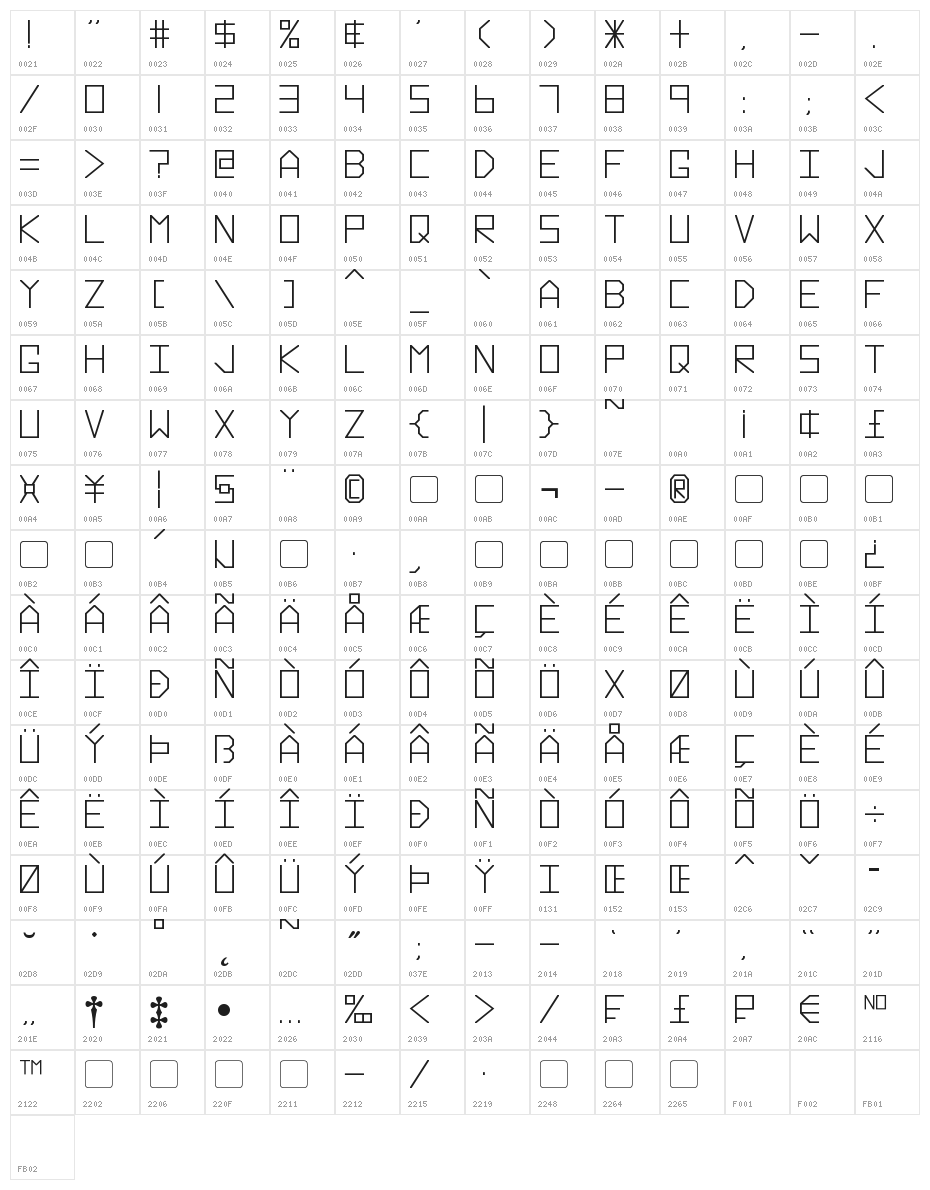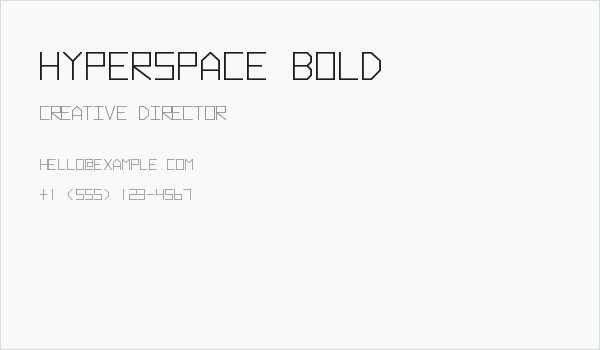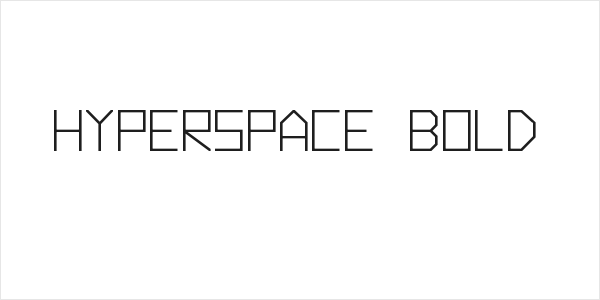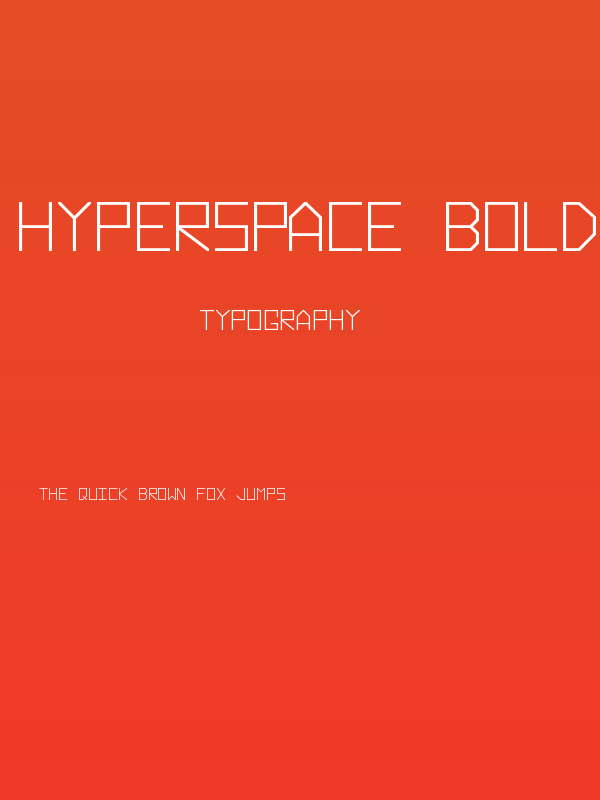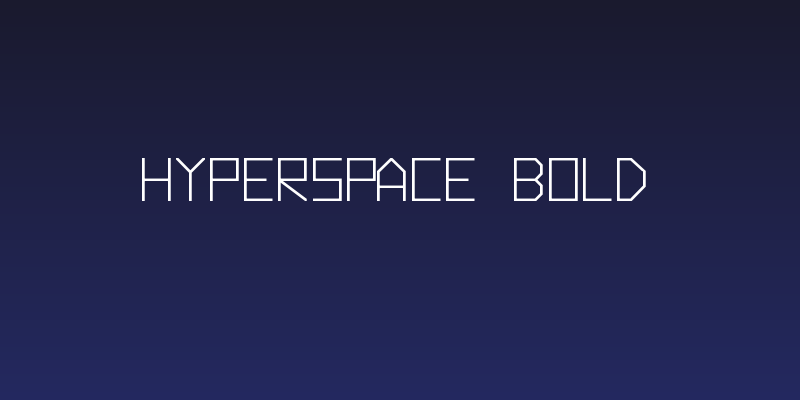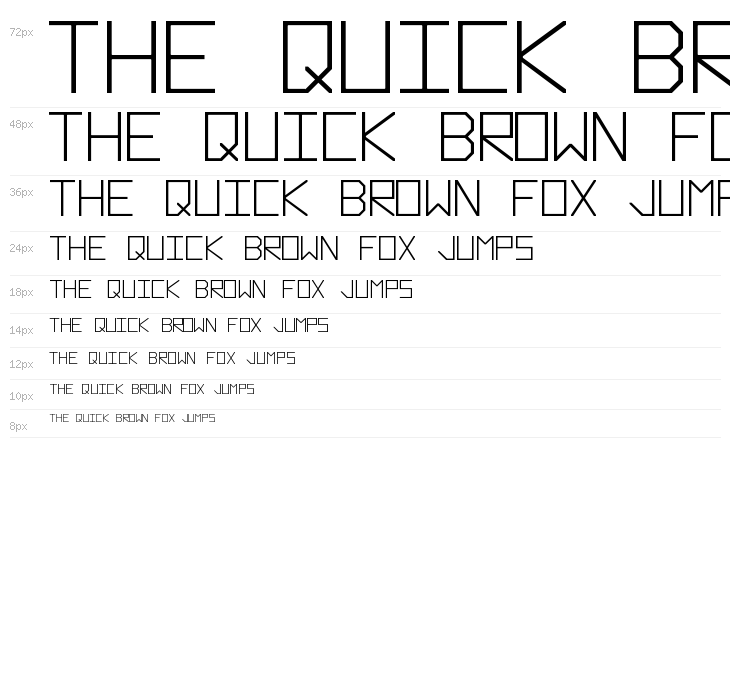
Hyperspace Bold Font
Hyperspace Bold Description
This font features a geometric and futuristic design, characterized by its angular and linear structure. The letters are formed with straight lines and sharp angles, giving it a modern and technical appearance. It maintains a consistent stroke width throughout, contributing to a uniform and cohesive look. The characters are well-spaced, ensuring readability while maintaining its distinct style. This font is ideal for projects that require a contemporary and cutting-edge aesthetic, such as technology branding, sci-fi themes, or digital interfaces.
| Proposed Projects | Ideal for technology branding, sci-fi themes, digital interfaces, and modern advertising. |